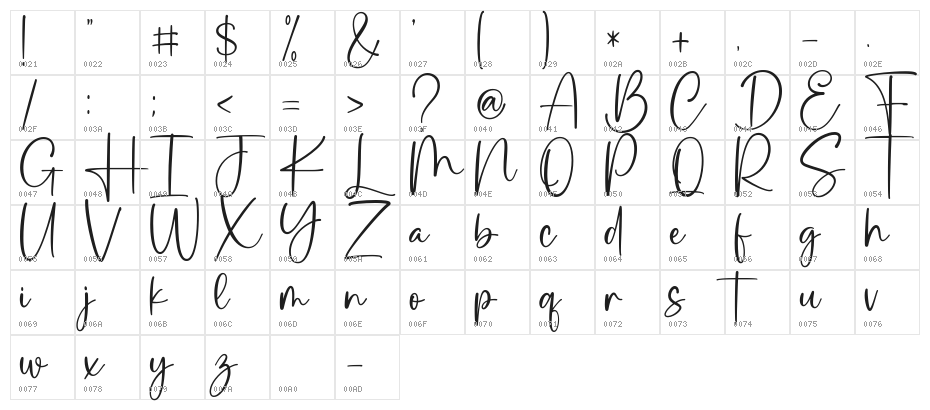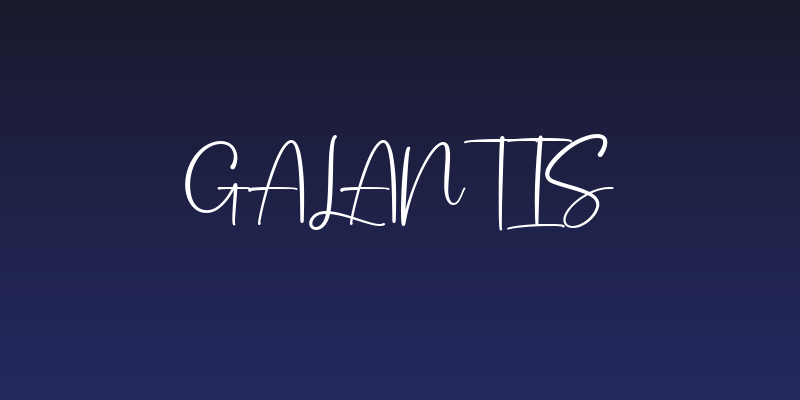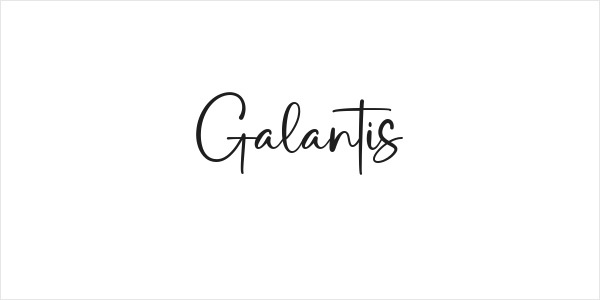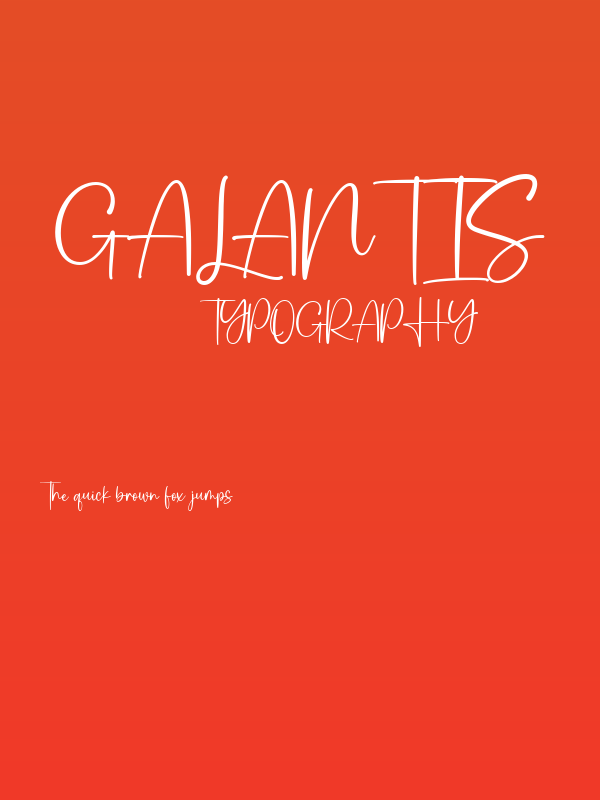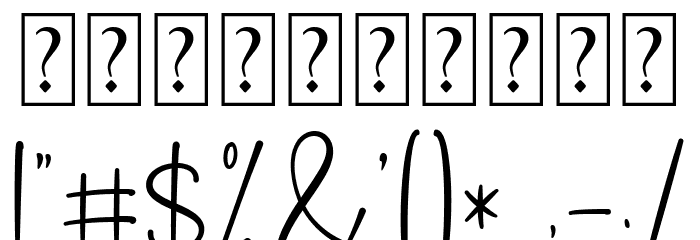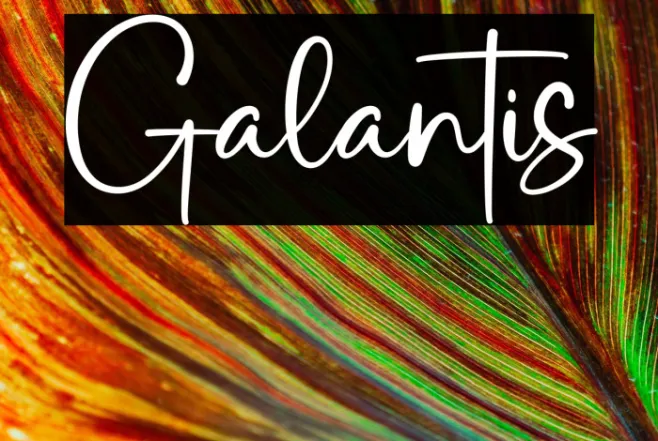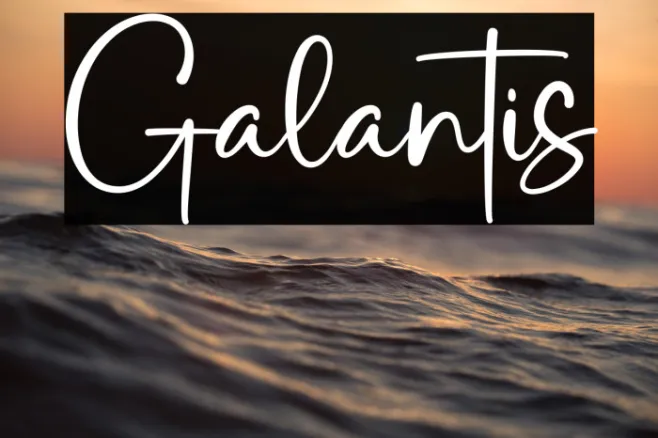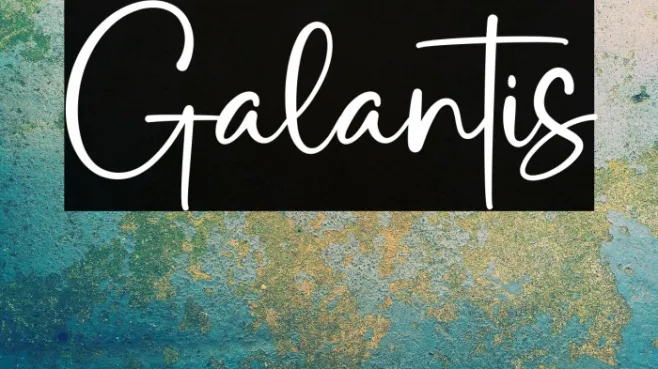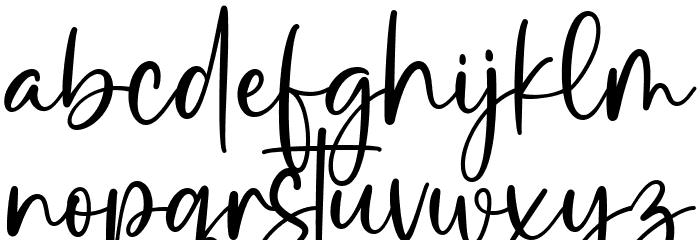
Galantis Font
Galantis Description
This font features a playful and energetic script style, characterized by its flowing, handwritten appearance. The uppercase letters are tall and slender, with a slight slant that adds a dynamic feel. The lowercase letters are more rounded and connected, giving a sense of continuity and fluidity. The strokes vary in thickness, providing a natural and organic look. The font includes a full set of numerals and a variety of special characters, maintaining the same lively and informal style throughout. Its overall appearance is both whimsical and elegant, making it suitable for creative and expressive projects.